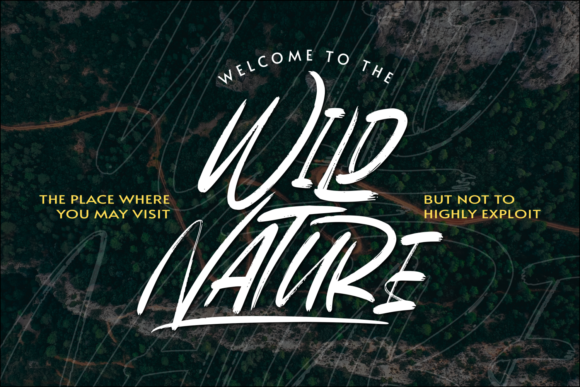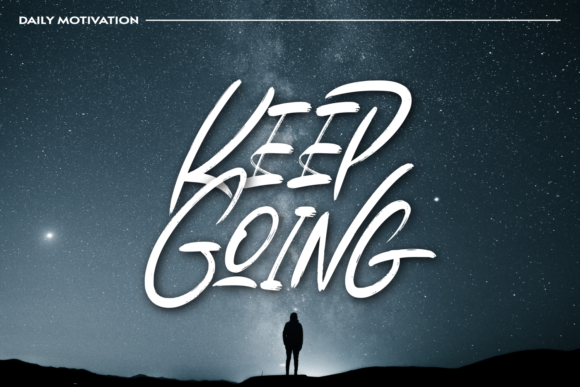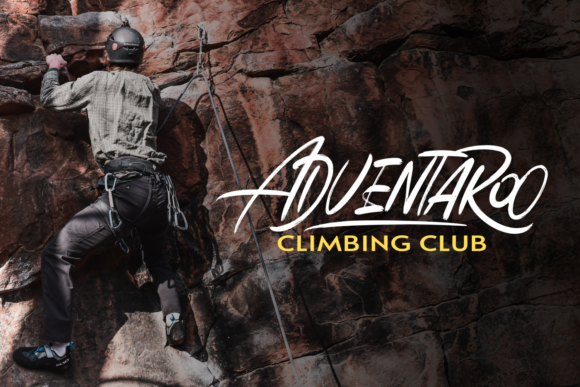
Introduction to Lemburg Font
Do you remember that moment when you finally nailed the perfect design for your creative project? The one that made you feel like you’re on top of the world? For designers, this moment is what makes all the hard work worth it. But, what if you could take your designs to the next level with a font that’s as cool and trendy as you are? Enter the Lemburg Font, a high-quality design resource that’s about to become your new best friend.
Whether you’re working on a digital project or crafting the perfect greeting card, the Lemburg Font is the perfect addition to your design arsenal. With its urban style and brushed finish, this font is sure to add a touch of sophistication to any design. And the best part? It’s available for free download, so you can get creative without breaking the bank. Plus, with a transparent background, you can easily place it over any image or design element to create a truly unique look.
Key Features of Lemburg Font
- High-quality design resource suitable for creative projects requiring a unique touch.
- Unique characteristics include a modern aesthetic and a wide range of stylistic variations, making it an excellent choice for creative projects.
Honest Review: Lemburg Font
I recently had the chance to work with the Lemburg Font, and I must say it’s been a great addition to my design resource library. One of the things that stands out about this font is its high quality and versatility. It’s perfect for a wide range of creative projects, from posters to business cards.
Here are some of the things that work well:
- ✨ Unique and elegant design: The Lemburg Font has a distinct and sophisticated look that’s hard to find in other fonts.
- ⚠️ Limited character set: The font only includes a limited number of characters, which can be a problem for designers who need to work with non-English text.
- ⚠️ Not suitable for small text: Due to its elegant design, the font may not be the best choice for small text sizes.
Overall, I’m impressed with the Lemburg Font. Its high quality and versatility make it a valuable addition to any designer’s library. While it may have some limitations, it’s still a great resource for creative projects.
Tips for Getting the Most Out of Lemburg Font
Use the Lemburg Font on a transparent background for a modern look. Combine the font with other design elements to create a unique design resource. Experiment with different font sizes and styles to find the perfect look for your project.
Common Use Cases for Lemburg Font
The Lemburg Font is a great choice for any creative project, including logos, business cards, and marketing materials. It’s also a good option for designers who want a free download font with a high quality design.